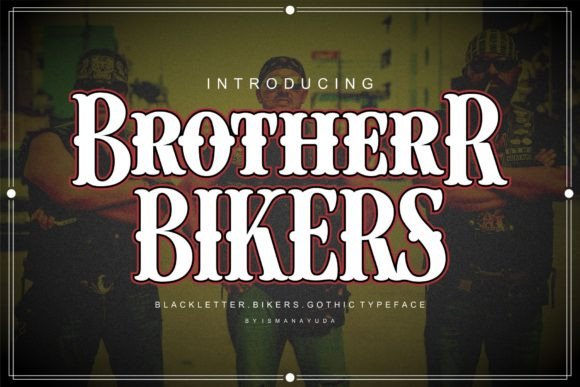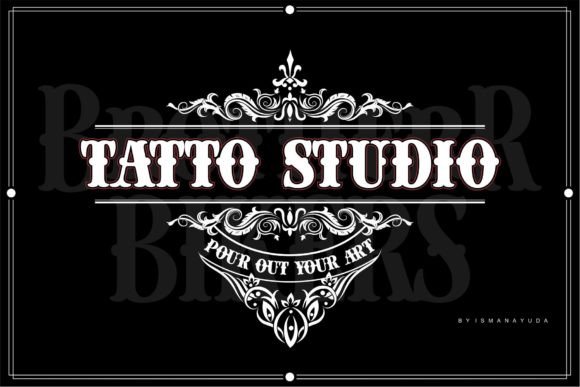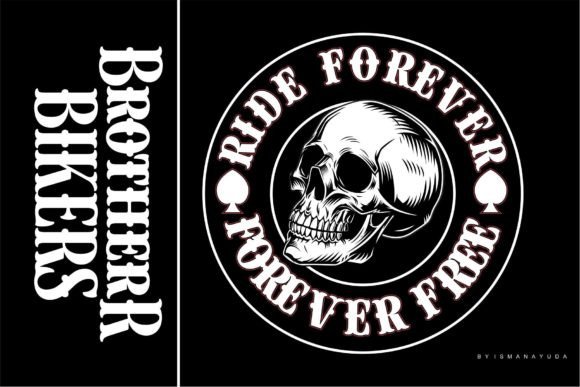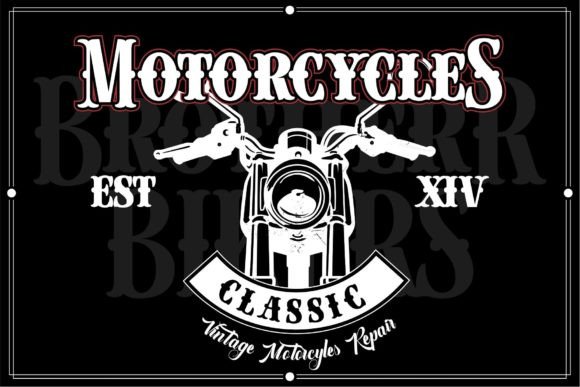
Brother Bikers Font: A Bold Display Font for Tattoos & Logo Design
About the Brother Bikers Font
The wait is over! The incredible Brother Bikers Font is now available for your design toolkit. Brother Bikers is a font that is intended for displaying needs or naming a community.
Whether it is used for a tattoo community or a motorcycle community.
It is also very suitable for use for barber shops or coffee shop poster displays as well as for tattoo studios.
Brother Bikers excels in headline use, short slogans, and logos where a bold, rebellious statement is needed. It’s ideal for branding materials targeting motorcycle clubs, tattoo parlors, or similar businesses emphasizing a rugged, masculine aesthetic. Avoid using it for body copy or lengthy text; its weight and character make it unsuitable for readability in paragraphs.
Pair Brother Bikers with a clean sans-serif like Montserrat for contrast, balancing its strong personality with a modern, legible typeface for supporting text. Alternatively, a classic serif such as Playfair Display could add a touch of sophisticated ruggedness, while a simple geometric sans-serif like Futura would provide a sharp, contemporary counterpoint.
The font projects a strong, rebellious, and masculine personality. It’s not suitable for projects requiring elegance or subtlety. Consider using it sparingly to maximize its impact.
Brother Bikers Font Usage Examples
Brother Bikers Font Example